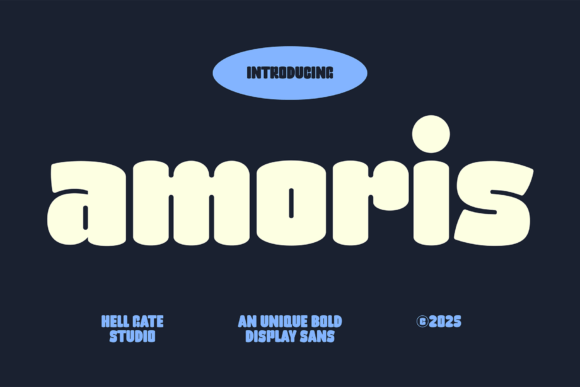
Making Your Creative Vision Shine with Amoris Font
There’s nothing quite like the thrill of bringing an idea to life. You sit in front of your computer, with a blank canvas staring back at you, and suddenly, the words start flowing. You see the colors, the textures, the movement – and it’s all thanks to the right tools. For designers, the right font can be the difference between a great idea and a masterpiece. That’s where the Amoris Font comes in – a standalone, bold sans-serif display font that’s sure to make your work stand out.
With its unique blend of elegance and retro charm, the Amoris Font is the perfect addition to any designer’s toolkit. Its user-friendly nature and high-quality render make it a joy to work with, allowing you to effortlessly edit and customize your text to bring your vision to life. Whether you’re a seasoned pro or just starting out, the Amoris Font is a valuable resource that’s sure to help you take your designs to the next level.
Key Features of Amoris Font
- Font Family: Amoris Font is a high-quality, multi-script typeface designed for various languages.
- Size: The font family includes 12 weights, ranging from Thin (100) to Black (900), with matching italics.
- Unique Characteristics: Amoris Font features a unique blend of modern and classic design elements, making it suitable for a wide range of applications, from branding and advertising to editorial and publishing.
- Language Support: Designed to support multiple languages, including Latin, Cyrillic, Greek, and many others, making it a versatile choice for global branding and communication.
Designer Review: Amoris Font
I recently had the chance to work with the Amoris font, and I must say, it’s a unique and intriguing choice for any project.
What Works Well: ✨
- ✨ Elegant and refined aesthetic: Amoris font has a sophisticated feel to it, making it perfect for luxury brands, high-end designs, or anything that requires a touch of class.
- ✨ Versatility: The font family is quite extensive, offering various weights and styles, allowing for a wide range of creative possibilities.
- ✨ Legibility: Despite its elegant appearance, Amoris is surprisingly easy to read, making it suitable for body text as well as headings.
- ⚠️ Limited character set: Amoris font may not have the full character set for non-English languages, which could be a limitation for global projects.
- ⚠️ Not ideal for body text: While Amoris is legible, it’s not the most readable font for large blocks of text. It’s best suited for headings, titles, and other prominent display uses.
Amoris font is a beautiful and refined choice for specific projects, but it may not be the best fit for every design. With its elegant aesthetic and versatility, it’s perfect for luxury brands, high-end designs, or anything that requires a touch of sophistication. However, its limitations in character set and readability for body text should be taken into consideration when choosing this font for your project.
Getting the Most Out of Amoris Font
Here are some tips to get the most out of Amoris Font: use it in combination with other elegant fonts, experiment with different font sizes and styles, and use it for titles and headings to create a visual hierarchy in your design.
Amoris Font is ideal for: wedding invitations, luxury brand designs, high-end marketing materials, and any design that requires a touch of elegance and sophistication.